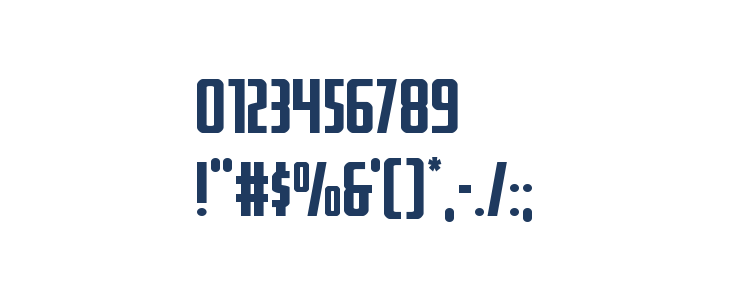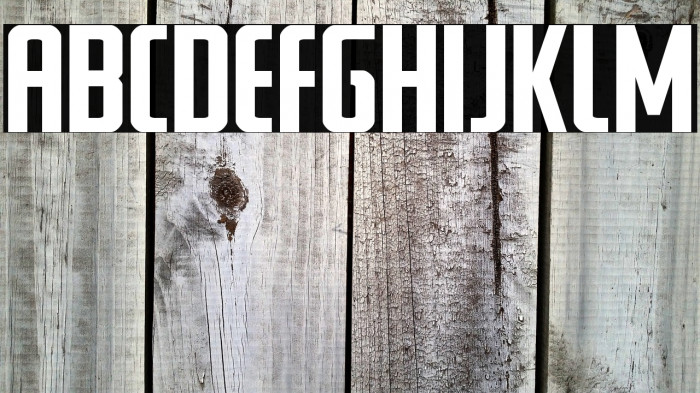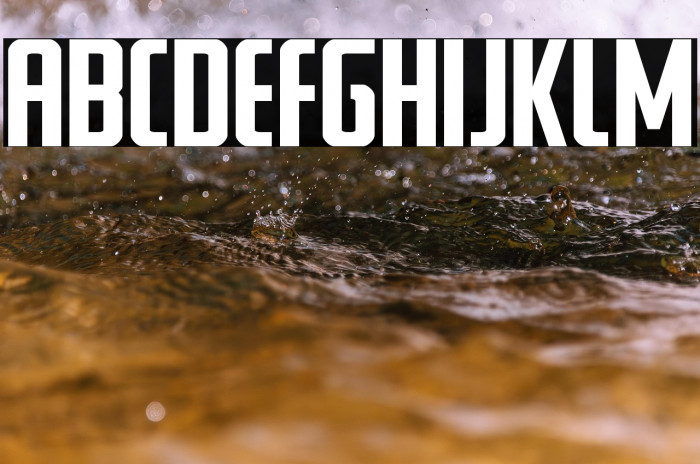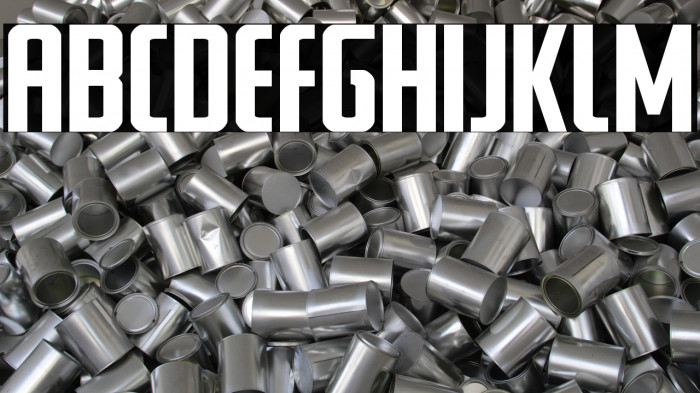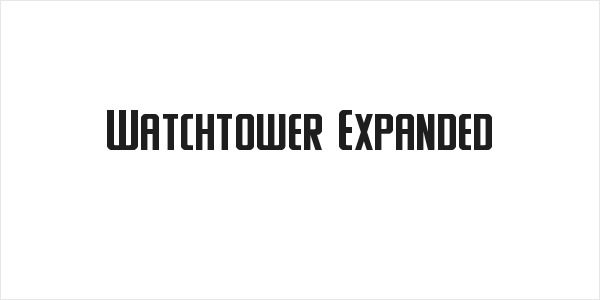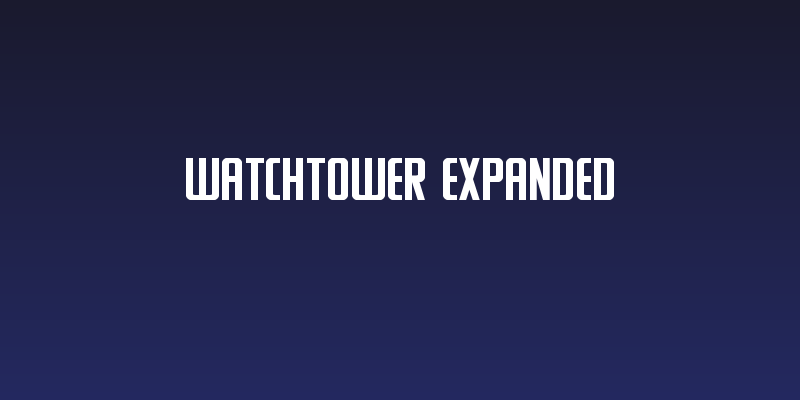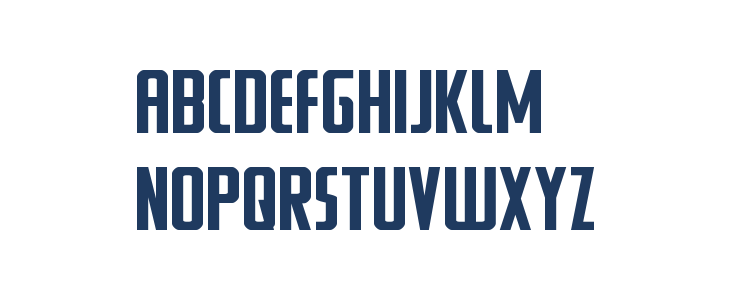
Watchtower Expanded Font
Watchtower Expanded Description
This font features a bold and striking design with a strong geometric structure. The characters are tall and narrow, giving an expanded appearance that commands attention. The uppercase letters are particularly prominent, with sharp angles and clean lines that convey a sense of modernity and strength. The numerals and special characters maintain this bold aesthetic, ensuring consistency across all glyphs. The font's design is suitable for making impactful statements, with its high contrast and distinct style.
| Proposed Projects | Ideal for headlines, posters, branding, and any project requiring a strong visual impact. |